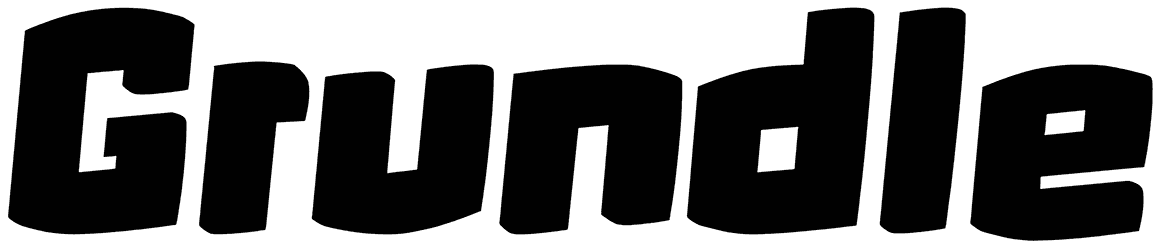
Grundle Font
Designed byMatt Williamson
The whole point of using a bold font such as this one is to capture attention and keep a modern and professional visual of your unique layout. The characters of the Grundle font are heavy and stunning, but it doesn’t cover most punctuation marks. Benefit from this unique block font and take your design to a higher level.